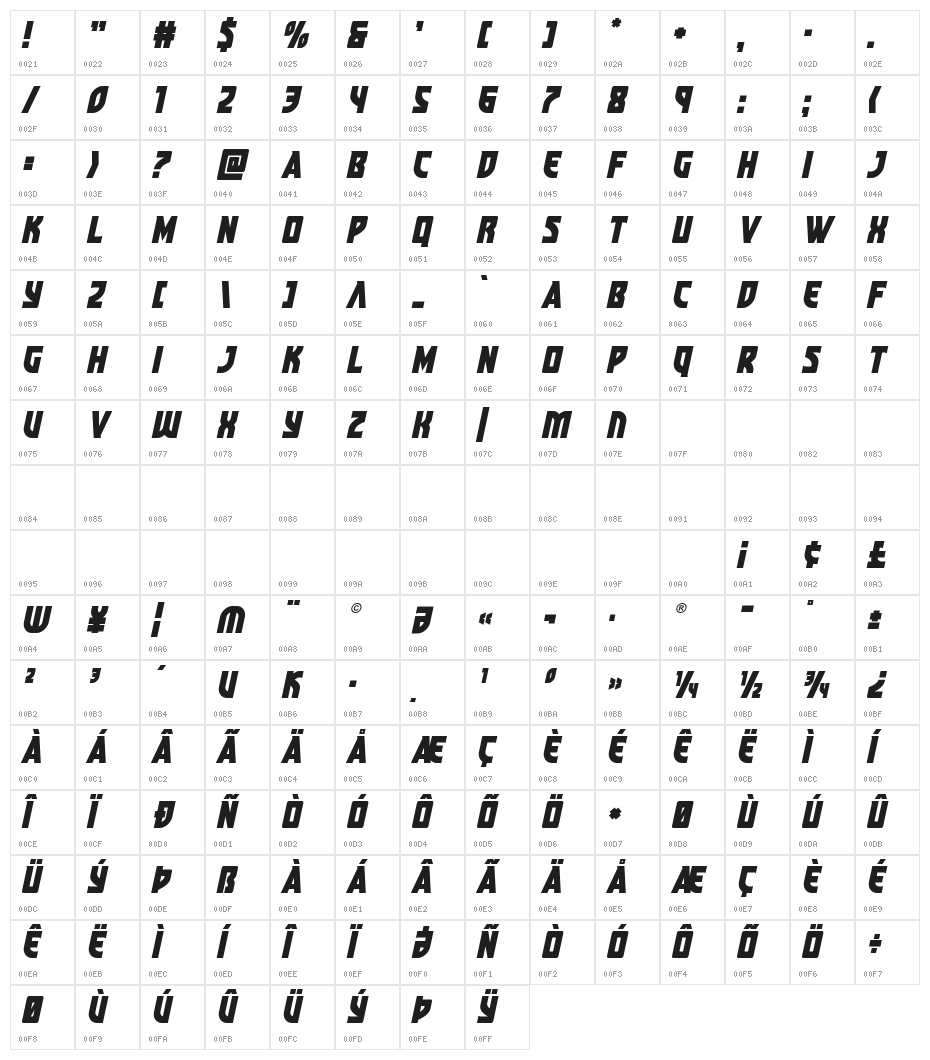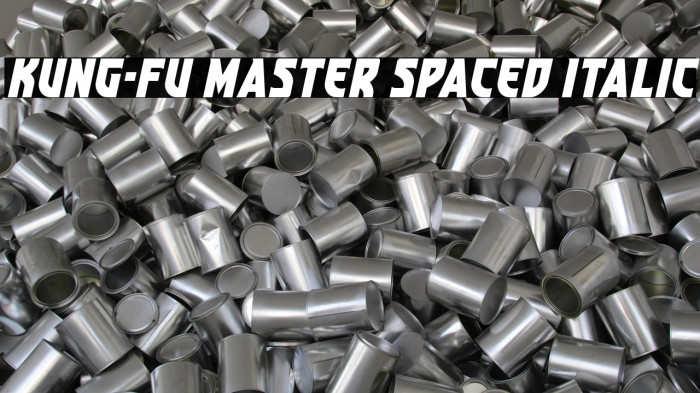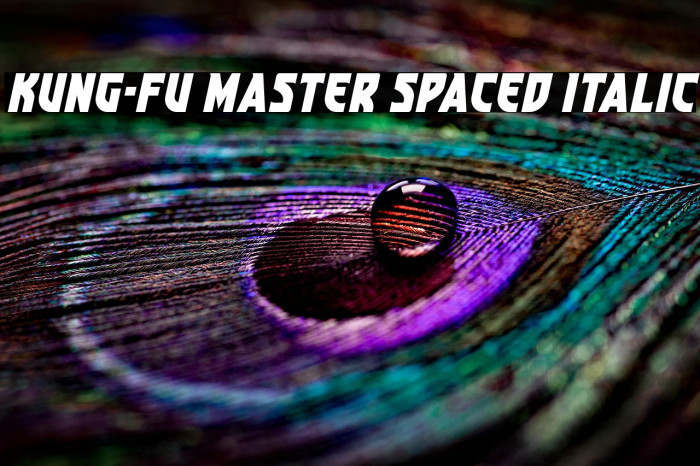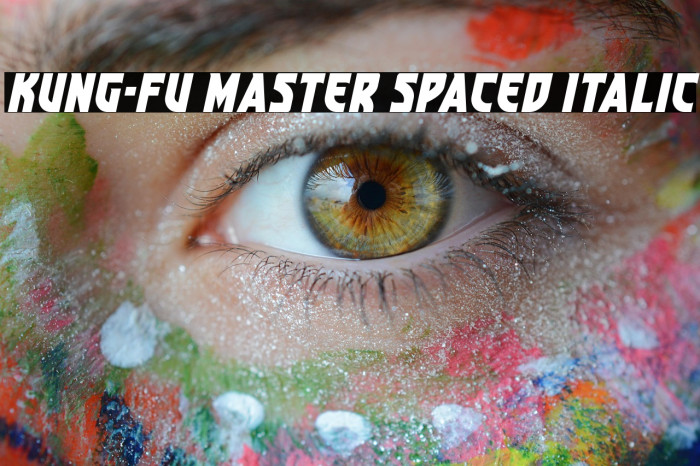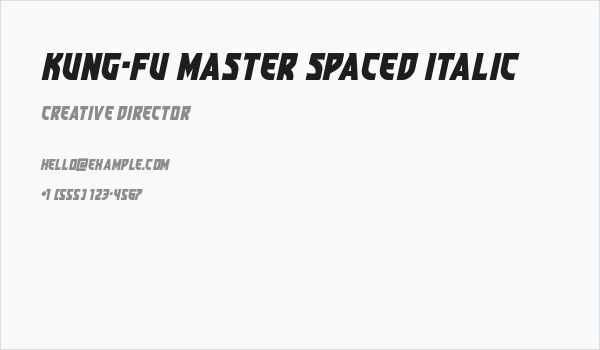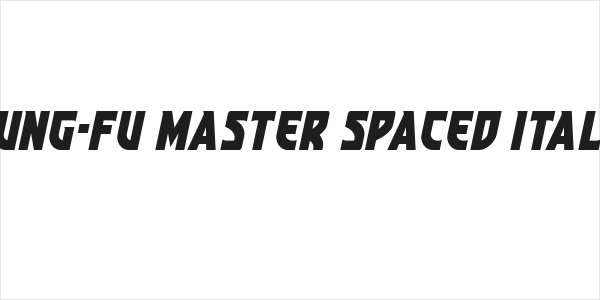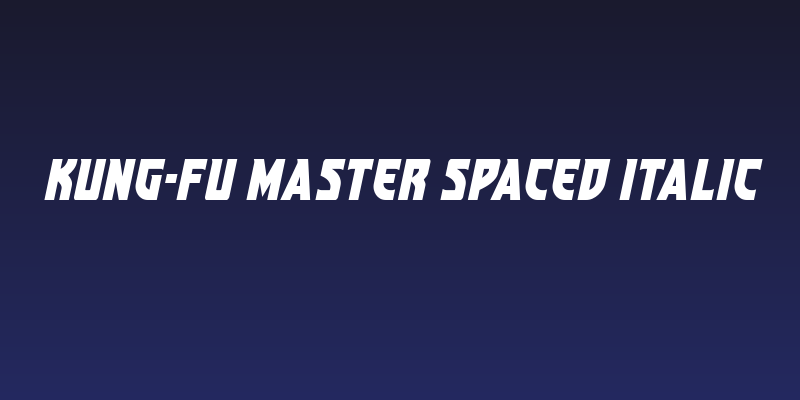
Kung-Fu Master Spaced Italic Font
Kung-Fu Master Spaced Italic Description
This font features a bold, dynamic style with a distinctly italicized slant, giving it a sense of motion and energy. The characters are robust and angular, with sharp edges and a strong presence, making it ideal for attention-grabbing headlines. The spacing between characters is slightly wide, enhancing readability while maintaining its bold impact. The numbers and special characters follow the same stylistic cues, ensuring consistency throughout. This font's design is reminiscent of action and adventure themes, making it suitable for projects that require a bold and energetic aesthetic.
| Proposed Projects | Ideal for action-themed posters, video game titles, sports branding, and dynamic advertisements. |